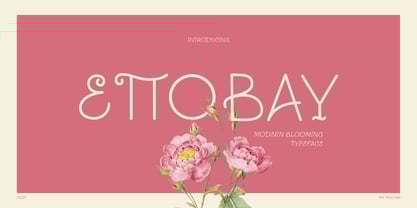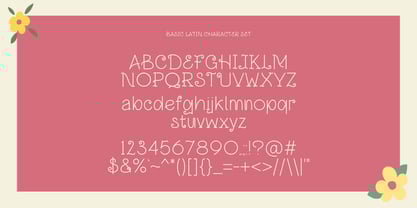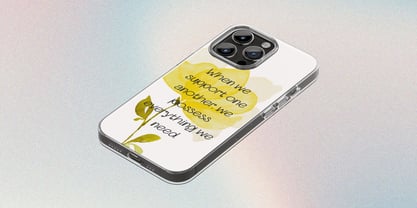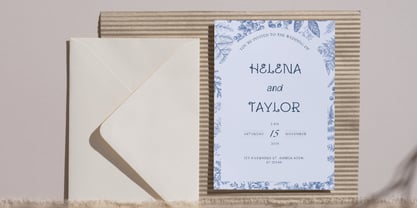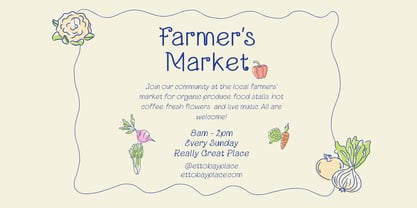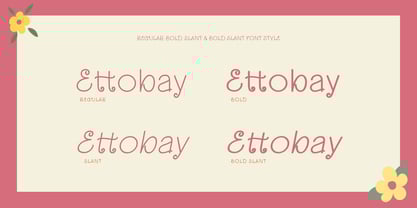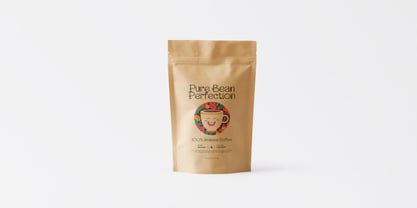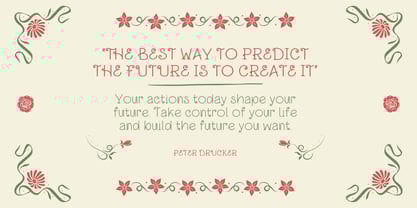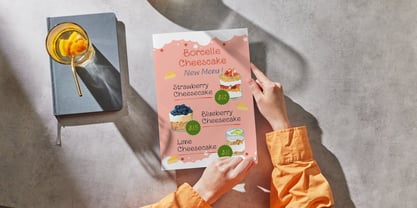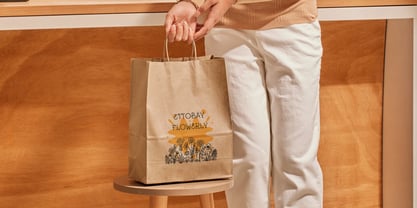
Ettobay
The Ettobay Font Family was designed by Rudi Suhairi and published by Tegaki. Ettobay contains 4 styles and family package options.
Ettobay – A Font Blooming with Natural Elegance
Ettobay is a beautifully crafted typeface inspired by the fresh and natural beauty of plants and flowers. Its organic curves and flowing strokes evoke a sense of vitality and elegance, perfect for designs that embrace nature’s charm. With four versatile styles—Regular, Bold, Slant, and Bold Slant. Ettobay adapts effortlessly to a variety of creative projects.
This font is perfect for branding, packaging, wedding invitations, magazine headlines, social media graphics, and eco-friendly product designs. Whether used in delicate floral-themed projects or bold nature-inspired branding, Ettobay brings a touch of freshness and sophistication to any design. Let your words bloom with Ettobay’s fresh and graceful aesthetic.